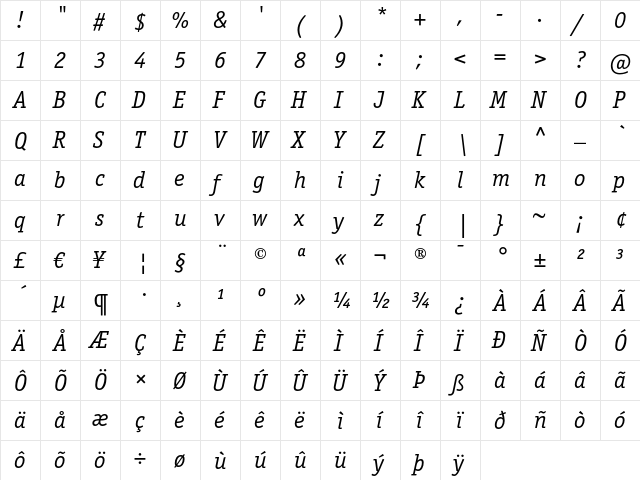
ITC Officina Serif LT Book Italic
Design Context for ITC Officina Serif LT Typeface
ITC Officina Serif LT brings classic typographic sensibility to the table — its serifs and measured letterforms reflect centuries of print heritage. The slanted form adds forward momentum and visual energy. The delicate stroke weight brings airiness and refinement to layouts.
Pro Tip: Set ITC Officina Serif LT at slightly larger body copy sizes than you would a regular-weight serif to compensate for its delicate stroke contrast.